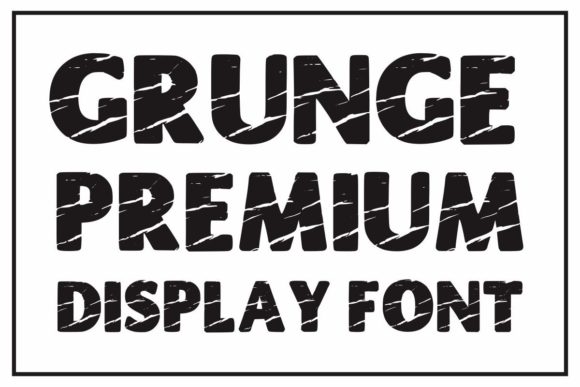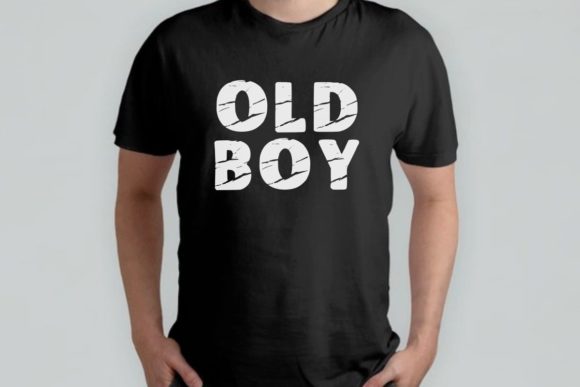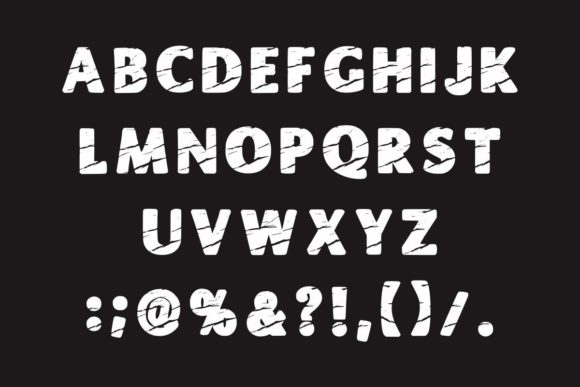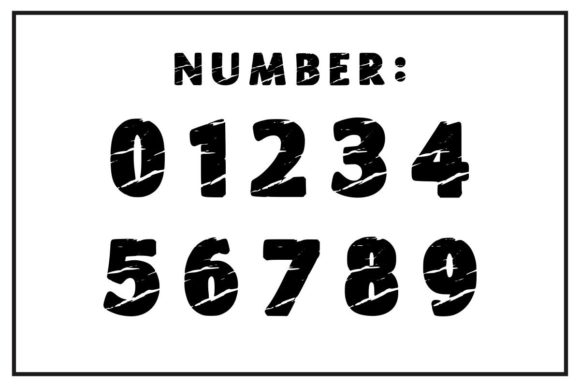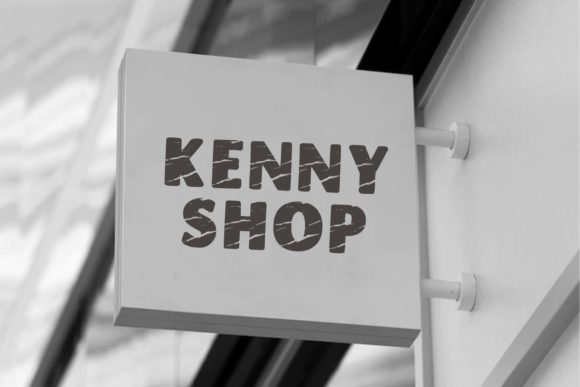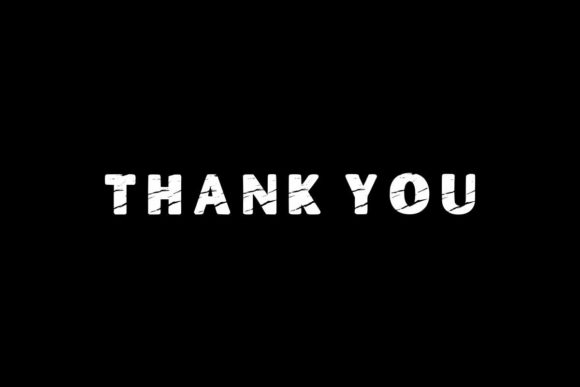
Unleash Your Inner Rebel with the Grunge Font
Do you remember that moment when you stumbled upon the perfect font, and everything just clicked? The one that made your project stand out from the crowd and left you feeling like a rockstar? For designers, finding the right font can be a game-changer, and today, we’re excited to introduce you to the Grunge Font – a cool and bold display font that’s perfect for making a statement.
The Grunge Font is designed to add a touch of edginess to your projects, from blog posts and logos to branding and invitations. Its unique style and versatility make it an invaluable asset for designers looking to create eye-catching designs that speak to their audience. Whether you’re a seasoned pro or just starting out, the Grunge Font is sure to become a go-to favorite in your design arsenal.
Grunge Font Key Features
- Font Family:** Grunge Font is a distressed, rough-textured font family that includes multiple weights and styles.
- Size and Resolution:** Designed for use at medium to large sizes (18-72 points) and high resolutions (300 DPI and above) to showcase its textured, grungy effect.
- Unique Characteristics:** Features a distressed, worn look with rough edges, scratches, and imperfections, giving it a vintage, DIY feel.
- Weight and Style Options:** Includes a range of weights (Light, Regular, Bold, Black) and styles (Italic, Oblique) to accommodate various design needs.
- Font Pairing:** Suitable for pairing with clean, modern fonts to create a striking contrast and add visual interest to designs.
Grunge Font Review
I’ve had the chance to work with the Grunge Font, and overall, it’s a unique and interesting addition to any design project. Here are some things that work well:
- ✨ The distressed texture adds a nice layer of depth and character to the font, perfect for designs that need a bit of grit and edge.
- ✨ The font is highly customizable, allowing designers to easily adjust the texture, color, and size to fit their project’s needs.
- ⚠️ The font can be quite overpowering, so be careful not to overuse it in a design. It’s best to use it as an accent or header font to add visual interest.
- ⚠️ The font’s distressed texture can sometimes make it difficult to read, especially for users with visual impairments.
Overall, the Grunge Font is a solid choice for designers looking to add a bit of edge to their project. While it has some limitations, it’s a versatile and customizable font that can be used in a variety of contexts.
Tips for Getting the Most Out of Grunge Font
Use Grunge Font to add a distressed or vintage touch to your designs.
Pair Grunge Font with bold, bright colors to create a striking visual effect.
Experiment with different font sizes and styles to create a unique look.
Common Use Cases for Grunge Font
Grunge Font is commonly used in:
Music festival posters and flyers
Distressed or vintage-themed designs
Rock